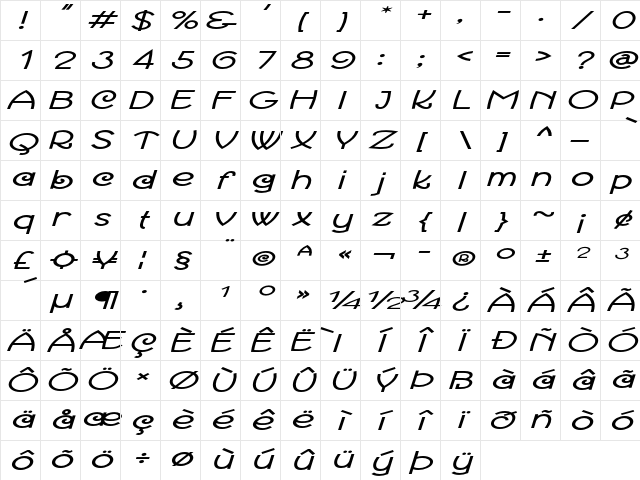
Karalonia Extra-expanded Italic
Style: Extra-expanded Italic
Karalonia Family
Karalonia Extra-expanded Italic
Design Context for Karalonia
Karalonia is a composed and adaptable typeface that performs quietly and consistently across a wide range of design contexts. The slanted form adds forward momentum and visual energy.
Pro Tip: Use Karalonia for emphasis, pull quotes, and subheadings where its slanted energy can add rhythm to the layout.